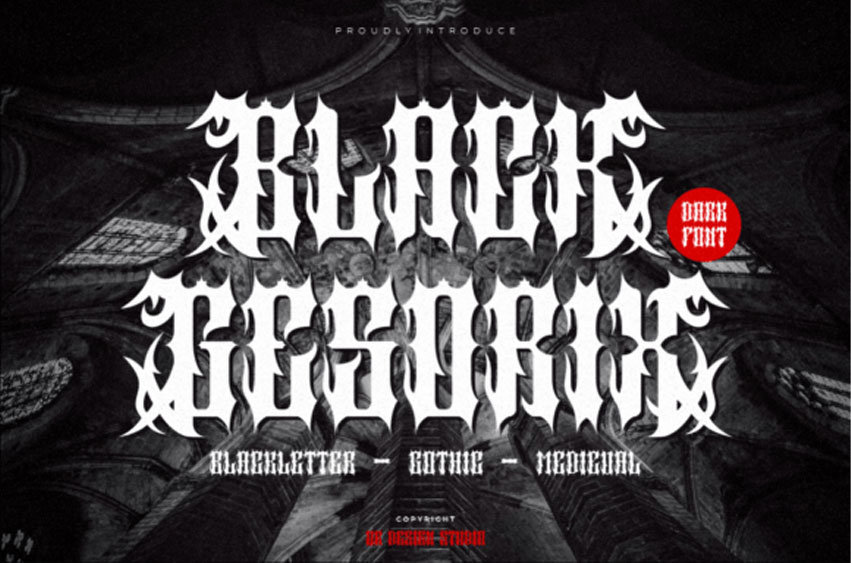
Black Gesorix Font
Black Gesorix Font is a fiercely bold blackletter font steeped in Gothic and medieval influence. With its razor-sharp edges, ornamental strokes, and heavy visual presence, this typeface evokes a powerful, dark aesthetic ideal for metal band logos, tattoo designs, posters, or any creative project that demands intensity and drama.
Its handcrafted look captures the essence of vintage manuscripts with a rebellious, modern twist.